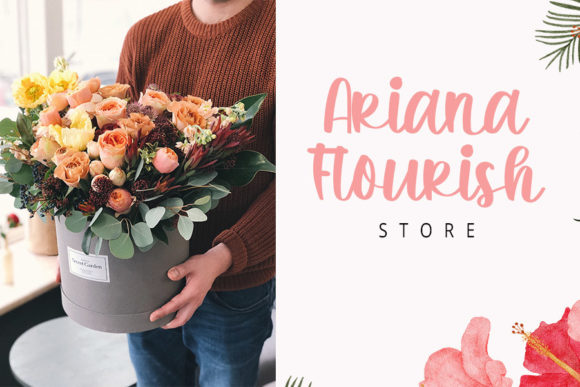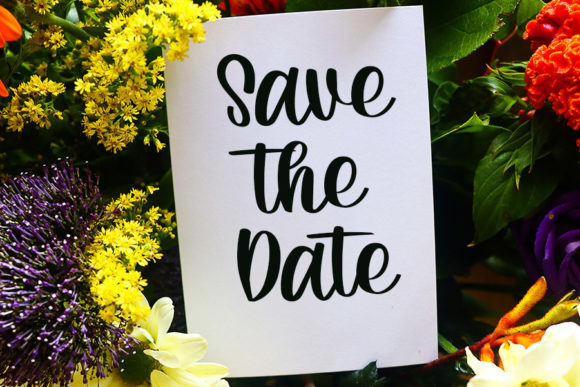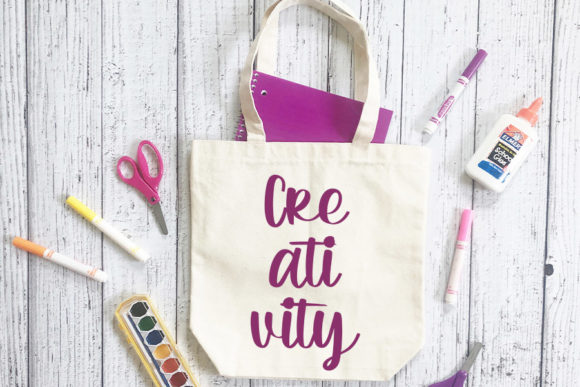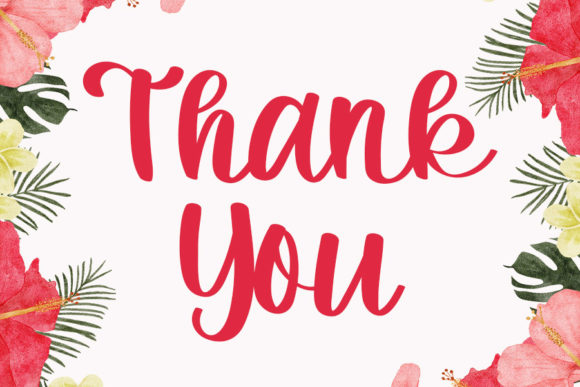
Vintage Sometime Font
Vintage Sometime is a lovely handwritten font featuring charming, playful characters that seem to dance along the baseline. Add this font to your most creative ideas, and notice how it makes them stand out!